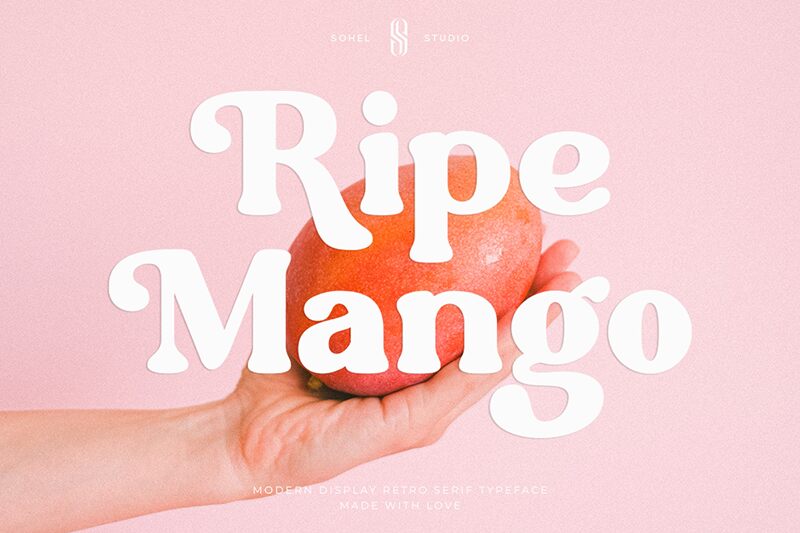
RipeMangoDemo
Ripe Mango font by Sohel Studio is a bold retro display font that captures attention with its ornate and vintage-inspired design. Expressive and quirky, it delivers a retro aesthetic that stands out with an old-fashioned vibe and personality.
Users can freely employ the lettering in sign designs, apparel items, greeting cards, postcards, store signs, book covers, webpage headers, advertisements, or packaging projects.
**Ripe Mango Features:**
- 4 Weights (Regular, Slant, Semi Bold, Outline)
- Uppercase and Lowercase
- Alternates and Ligatures
- Numerals & Punctuation
- Accented Characters
- Multilingual Support